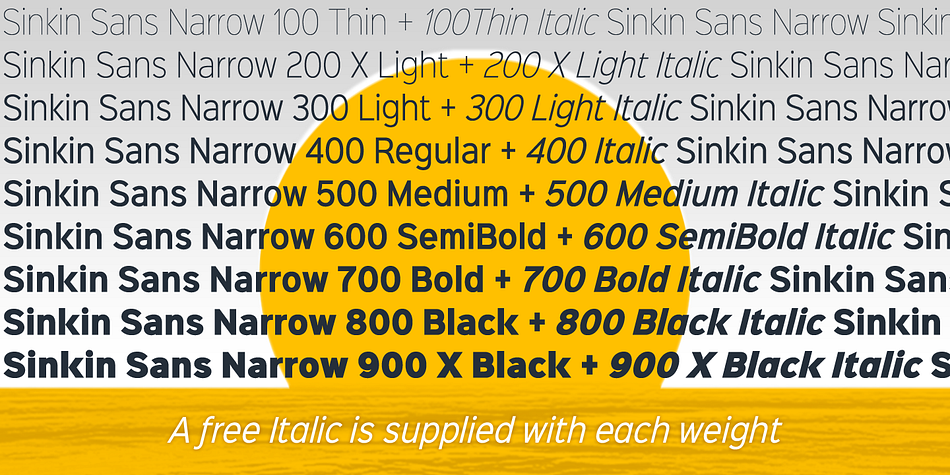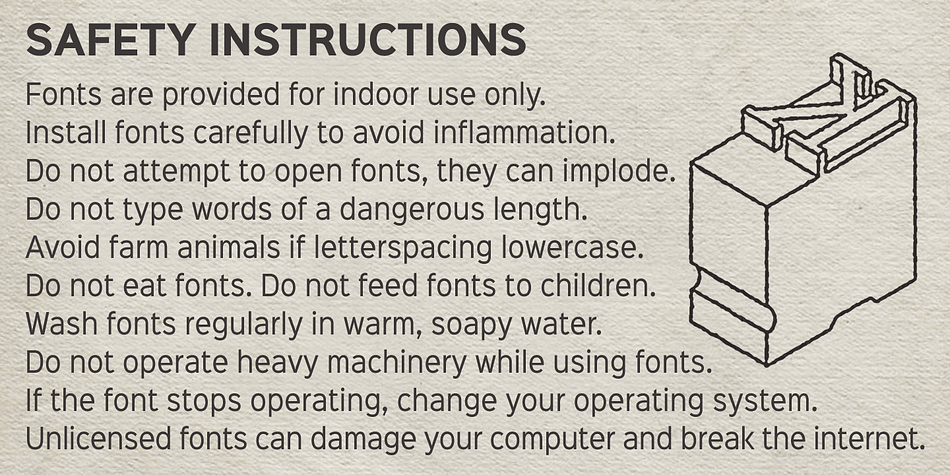
Sinkin Sans Narrow is a sans serif font family. This typeface has eighteen styles and was published by K-Type.
Sinkin Sans Narrow is a simple, pleasantly proportioned and easy to read sans-serif, available in all 9 standard web weights, 100 to 900, plus italics. The face is a comprehensive illustration of the CSS web font numerical scale.
The Sinkin Sans fonts are designed with tiny, inconspicuous notches that sink into verticals at the intersections of strokes, adding highlights to congested corners. The incisions make right angles appear sharper and improve definition in more intricate characters.
Sinkin Sans Narrow inherits the enviable clarity and readability of the luxuriously wide original family. The Narrow typeface, however, is designed to economise on space within busy web pages and has been sensitively condensed for maximum legibility.
Each weight of Sinkin Sans Narrow is supplied with a free Italic. The original, luxury width Sinkin Sans family remains absolutely free for personal and commercial use.